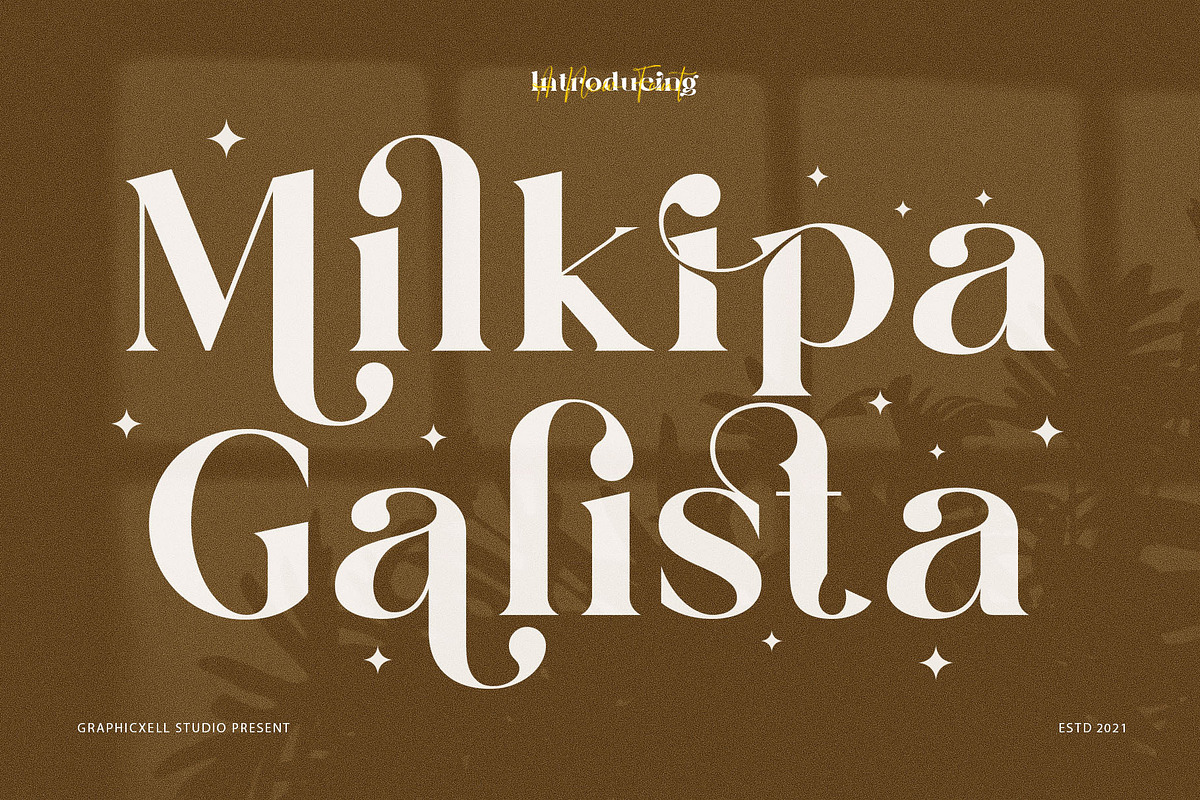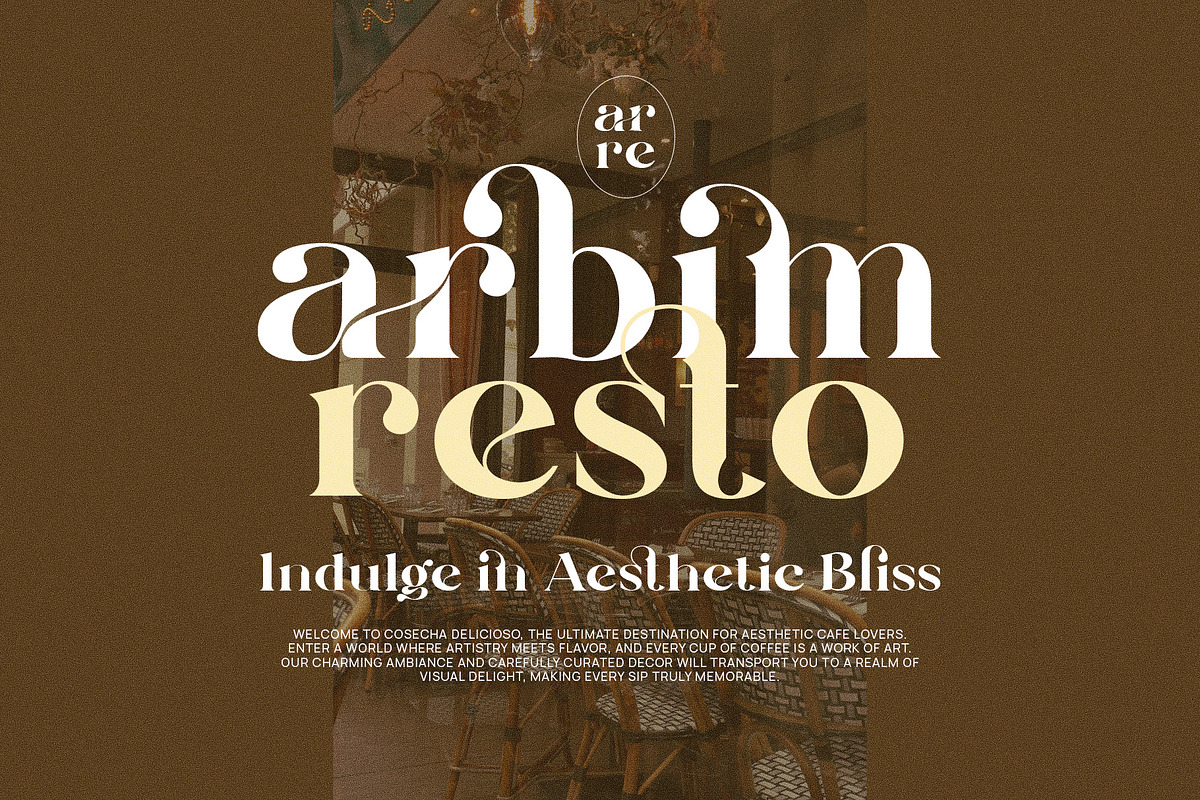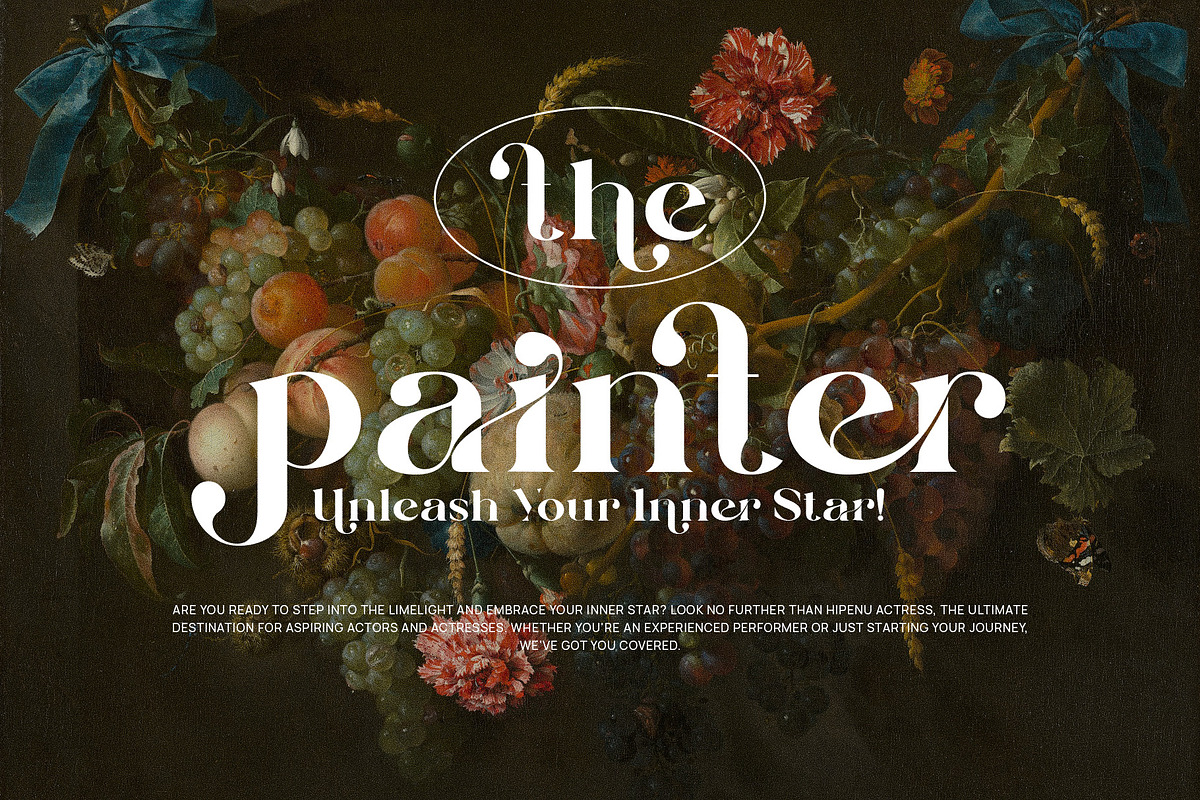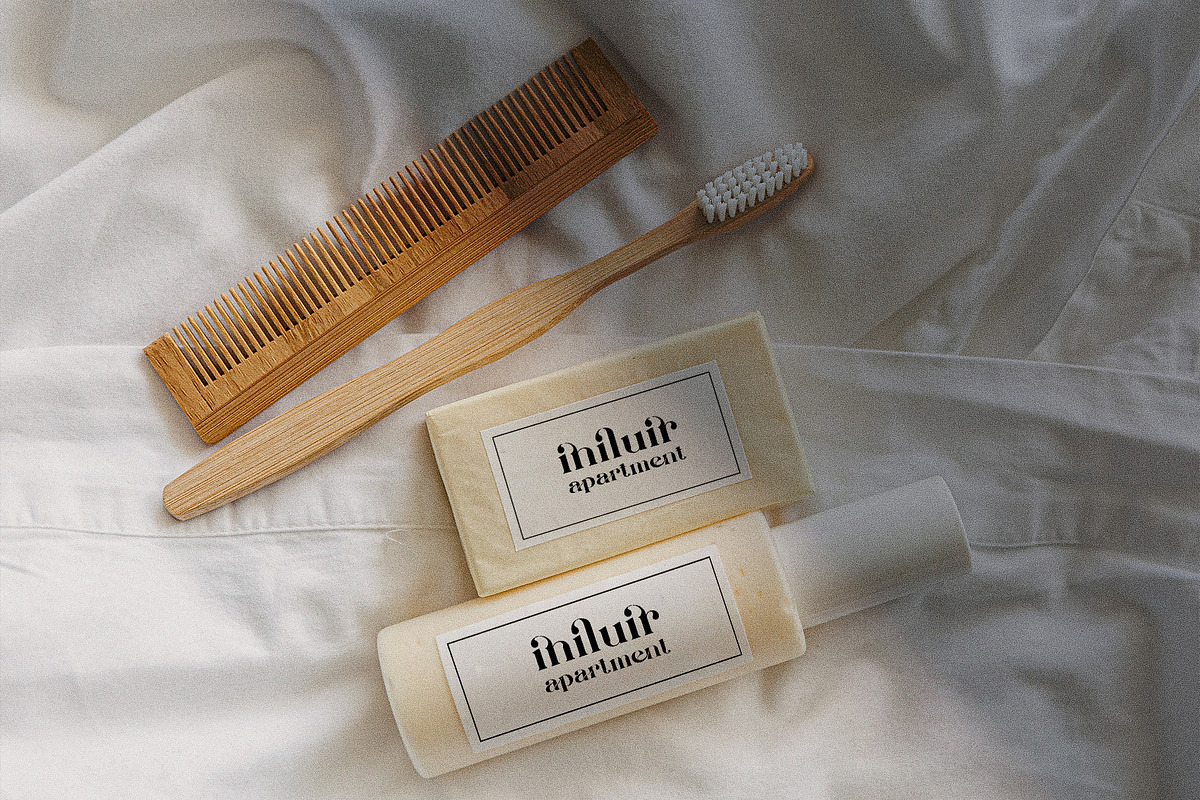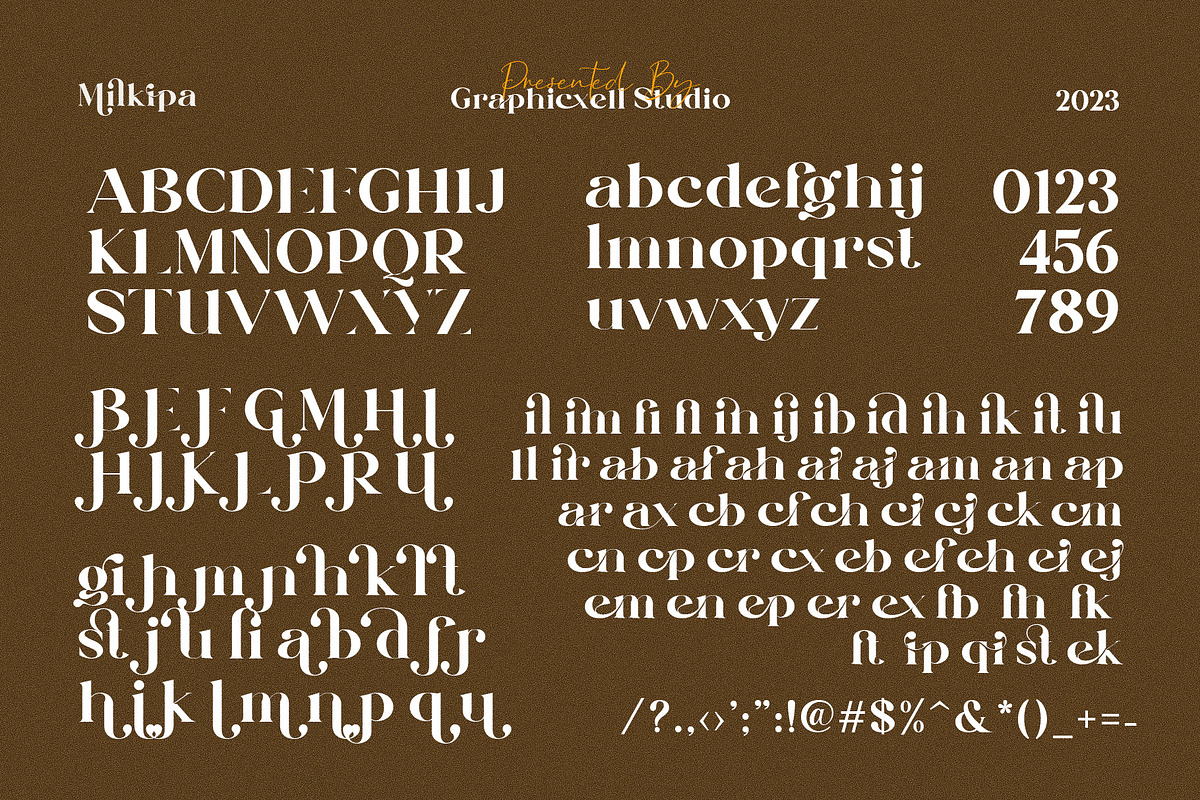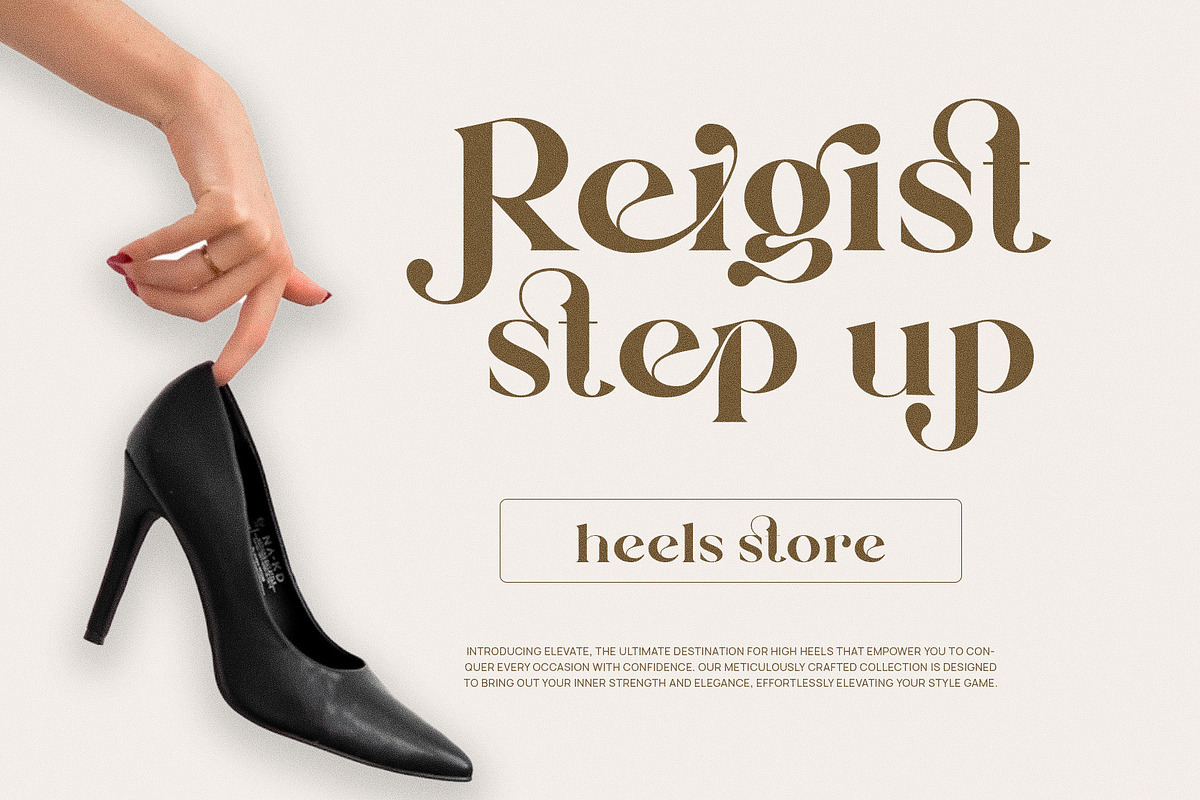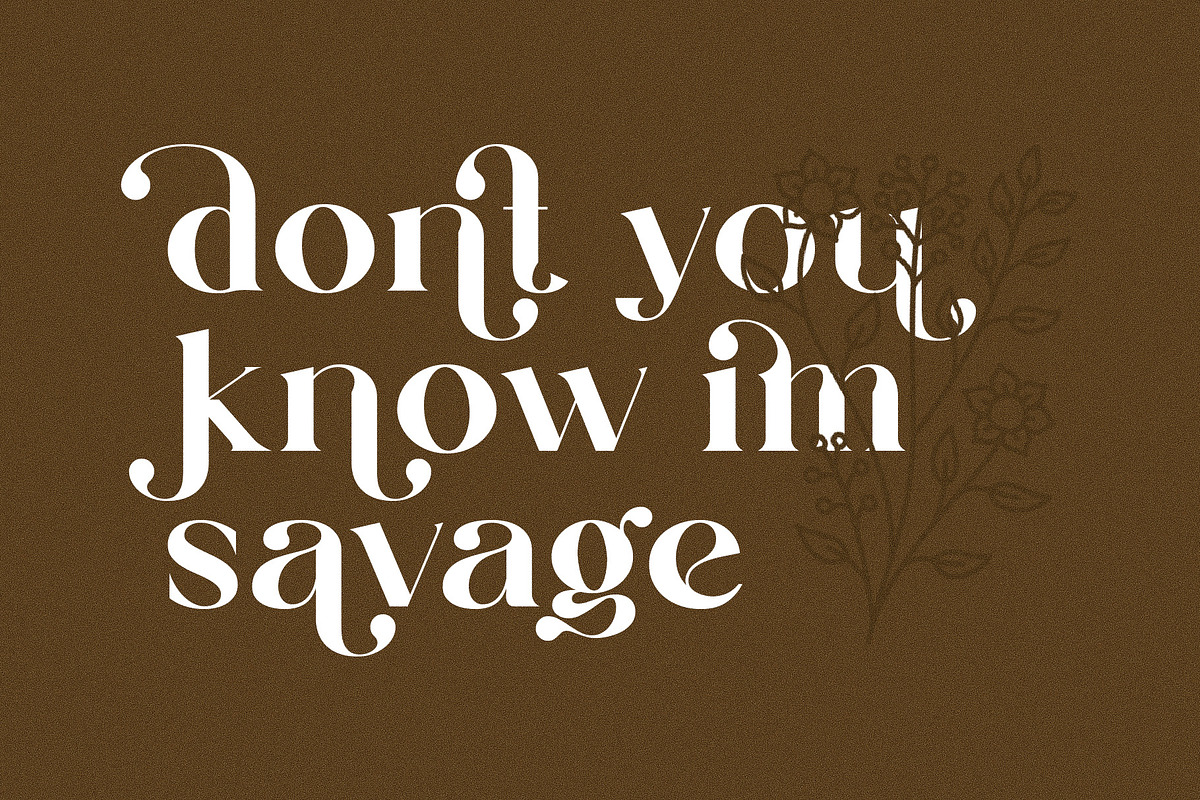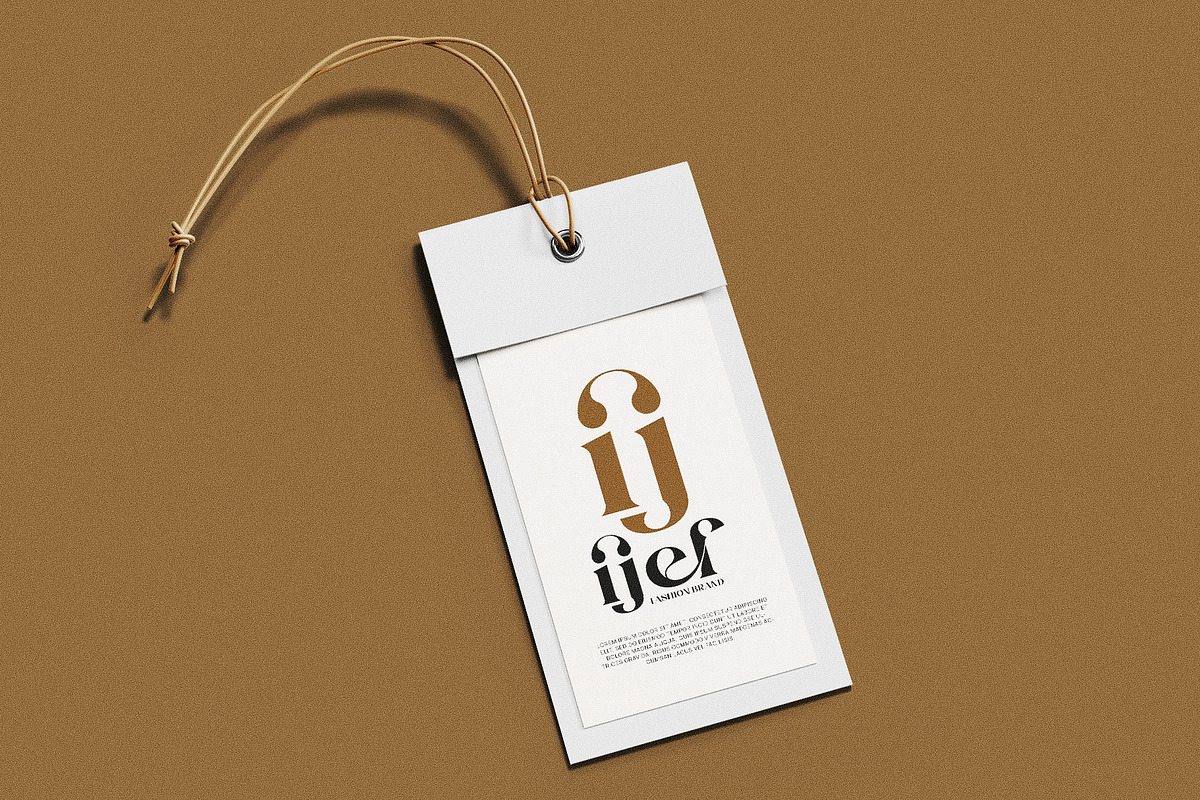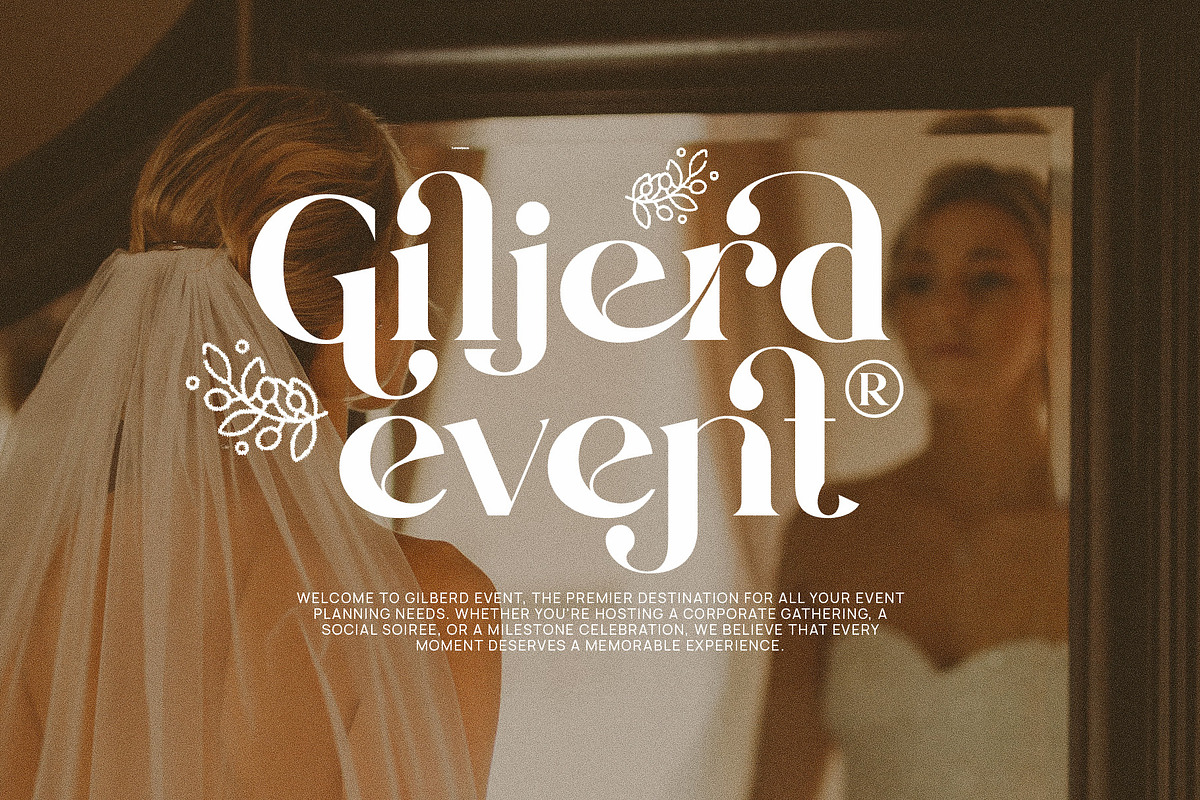
Milkipa Galista - Ligature Typeface
Milkipa Stylish - Ligature Typeface inspired by the famous minimalist logo perfect for the purposes of designing templates, brochures, videos, advertising branding, logos and more.